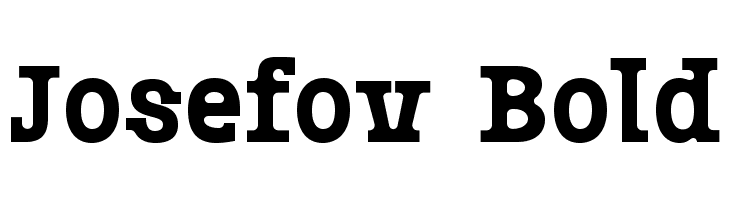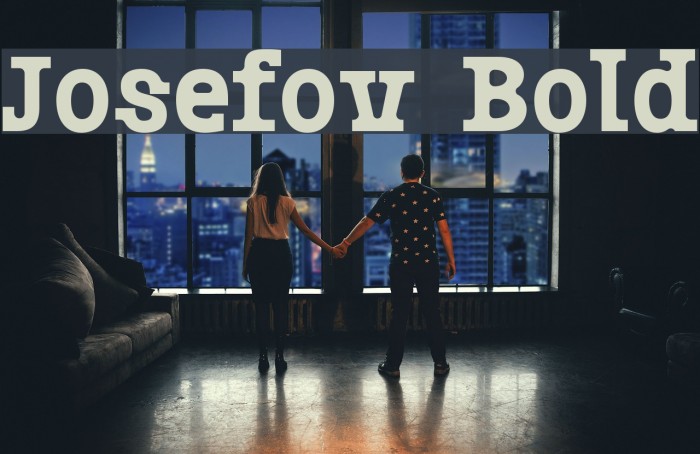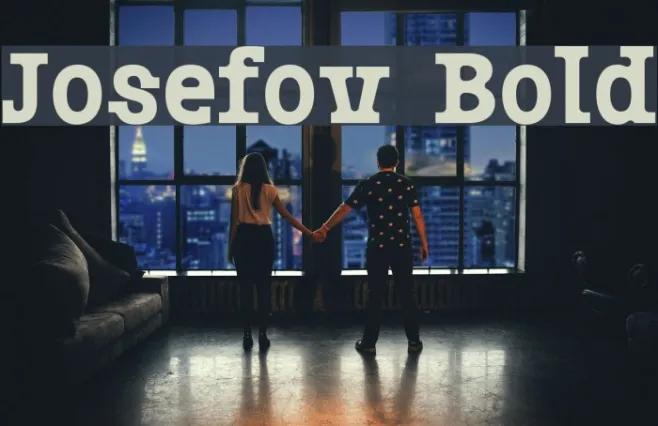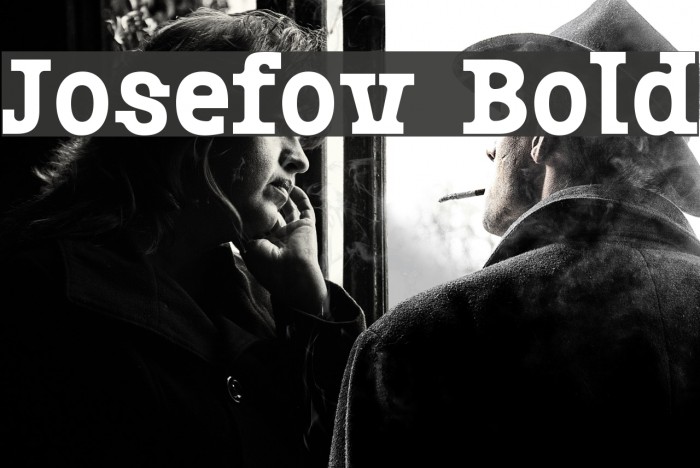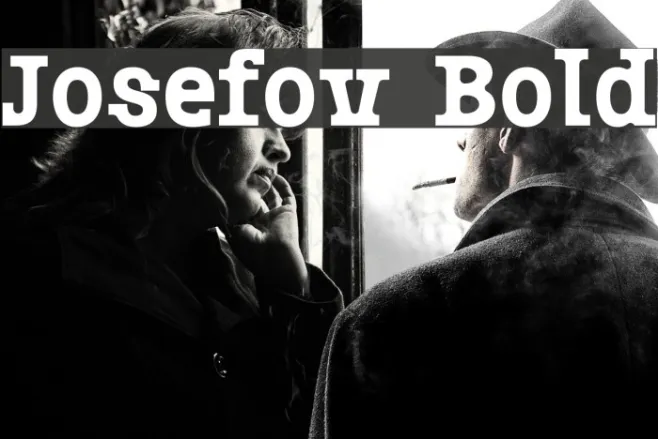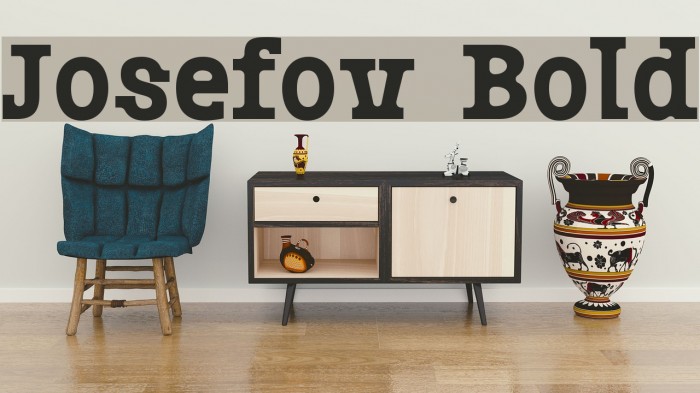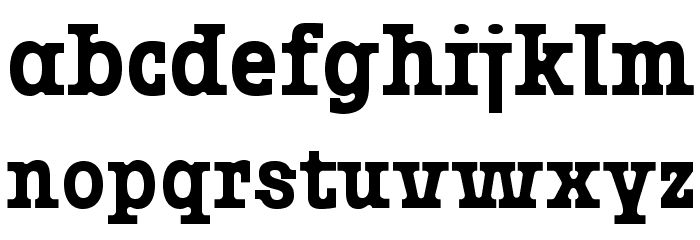
Josefov-Bold Font
This font features a bold and impactful design with strong, thick strokes that convey a sense of authority and confidence. The characters are well-defined with a slab serif style, offering a classic yet modern appeal. The uppercase letters are particularly striking, with a uniform height and width that ensures readability and presence. The lowercase letters maintain the same robust quality, providing a cohesive look across different text sizes. The numerals are clear and distinct, making them suitable for various applications. Special characters are included, enhancing the font's versatility for different uses.
A bold, slab serif font with strong, thick strokes and a classic yet modern appeal.
• Proposed Projects: Ideal for headlines, posters, branding, and any project requiring a strong visual impact.
• Category: Slab Serif
• Contrast: Medium
• Overall Style: Classic
• Use Case: Headlines, Logos, Posters